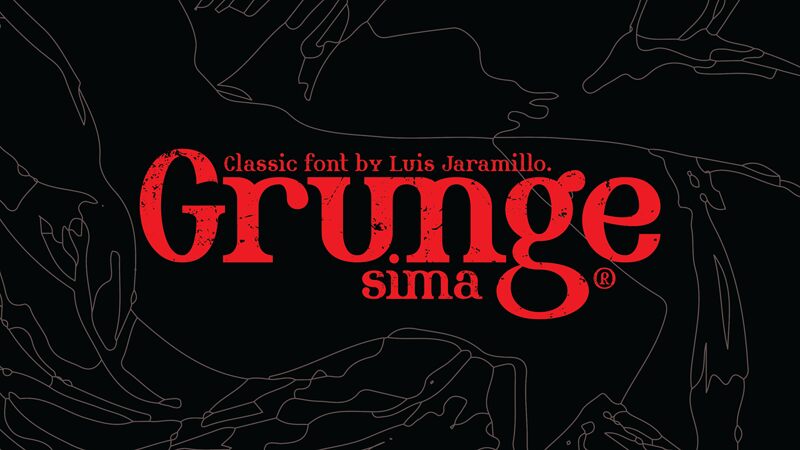
Sima Grunge DEMO
Sima Grunge font by LJ Design Studios is a rugged and eroded display typeface with vintage influences. A distressed appearance can be noticed immediately from its textured lines, weighted letters, and edgy presentation. Giving off a nostalgic vibe, the font has serif influences that enhance its rugged aesthetic while maintaining great readability every step of the way.